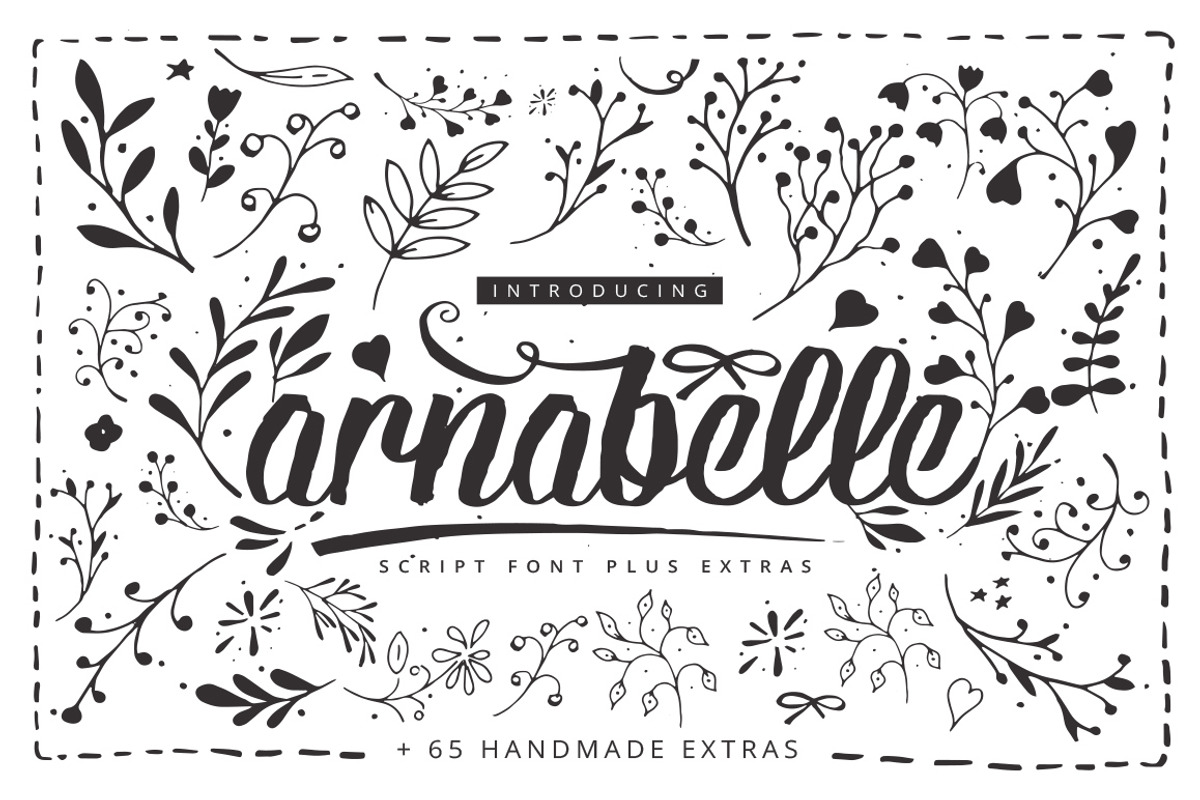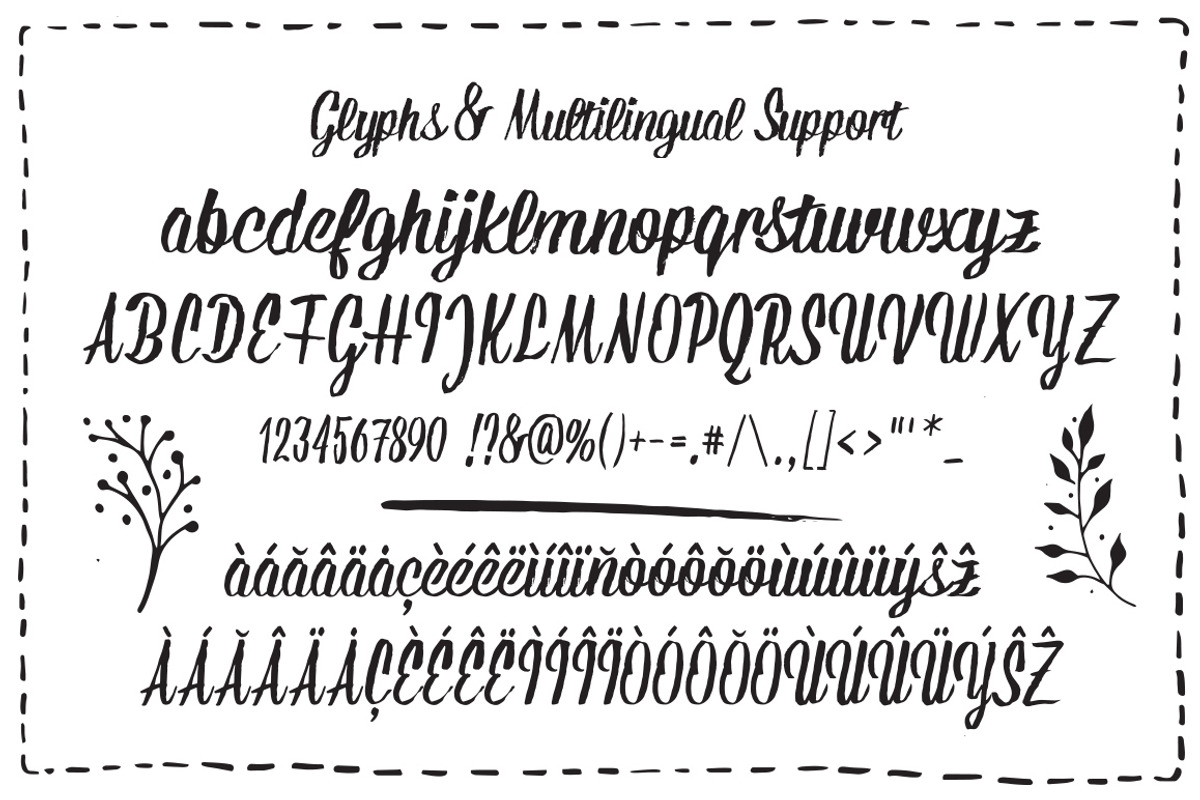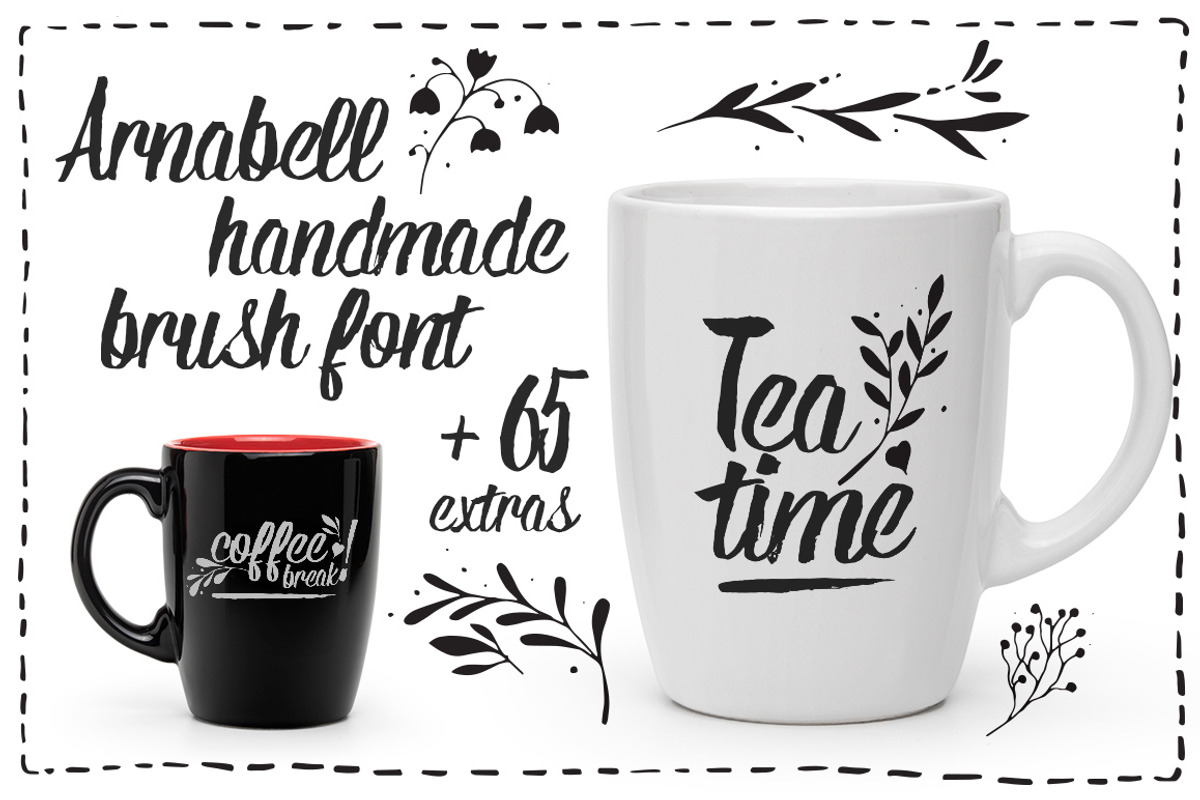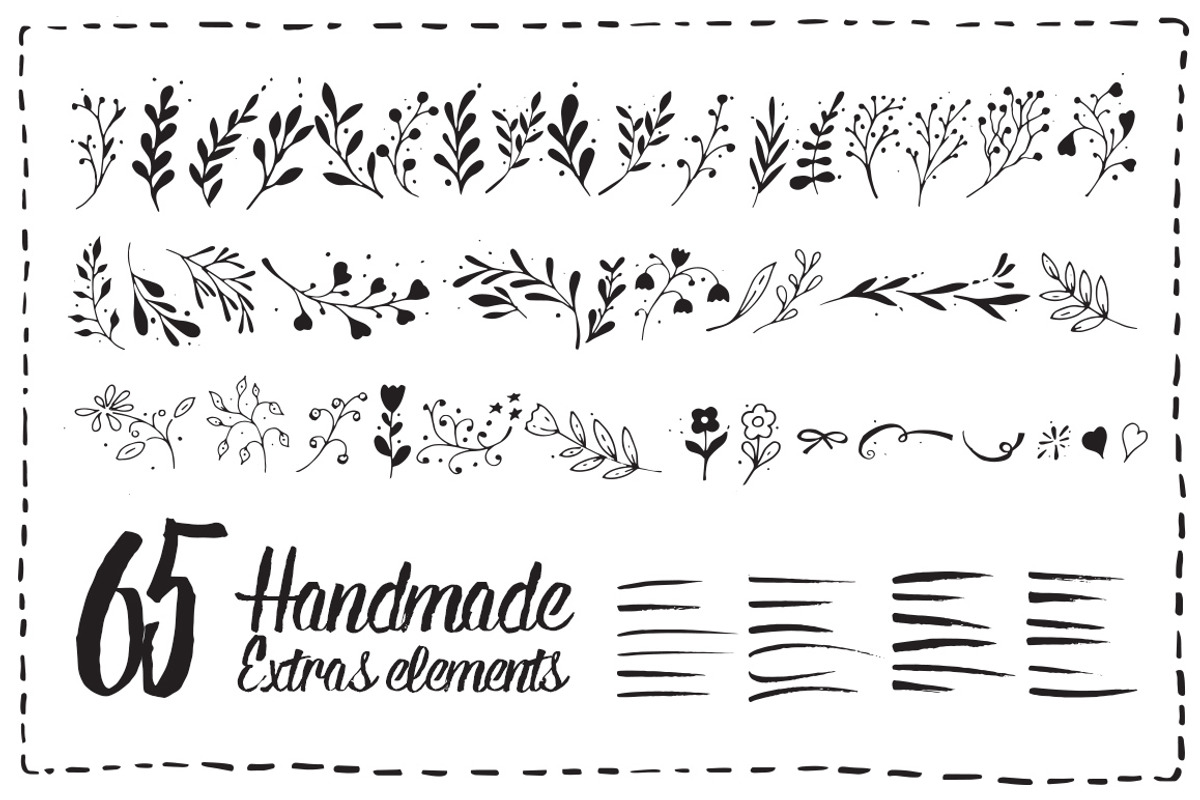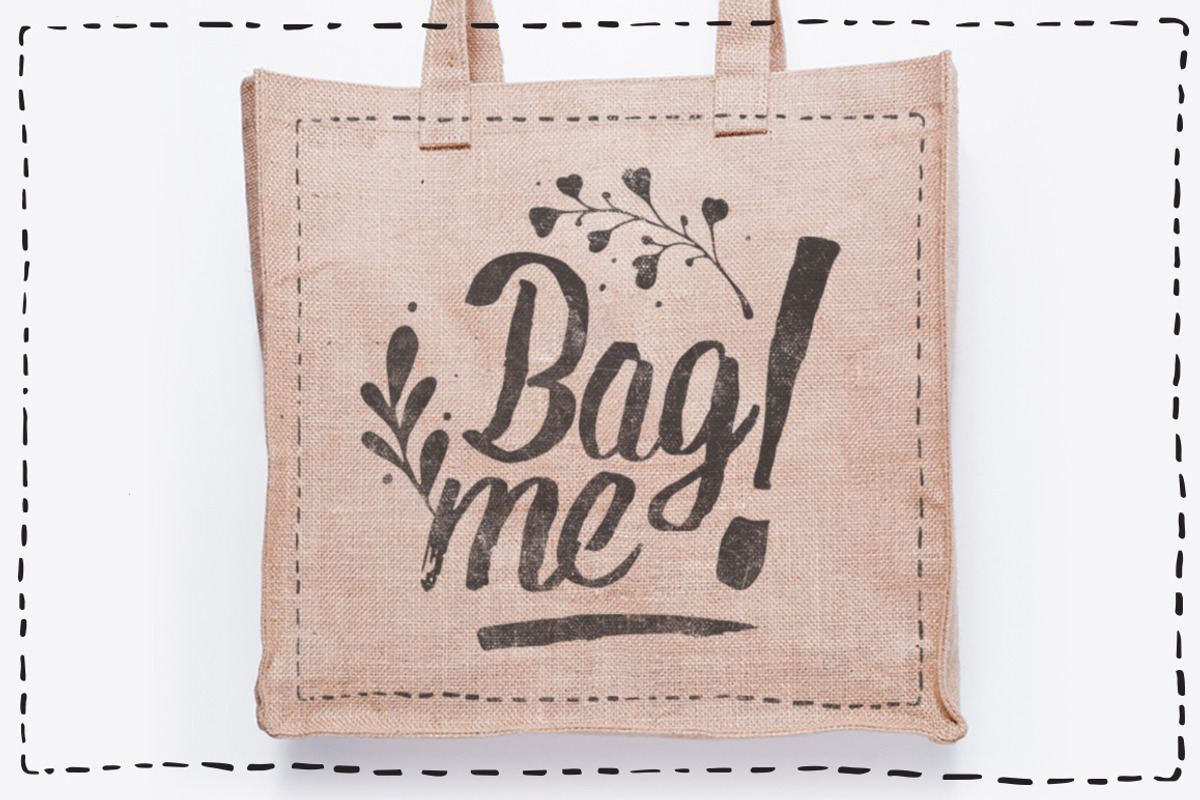
Arnabelle Script Font + 65 Extras
Arnabelle Script Font + 65 Extras by DesignSomething is a font selected for branding, posters, packaging, typography.
- This product include: Uppercase Lowercase Alternative glyphs Multilingual support 65 extras elements Enjoy!
Arnabelle Script Font + 65 Extras by DesignSomething fits naturally into Branding, posters, packaging, typography.